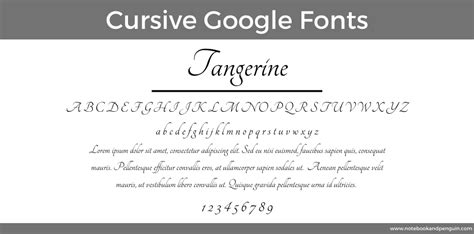
Google Font Cursive. Making the web more beautiful, fast, and open through great typography. Find out the pros and.
Cursive Fonts on Google Docs [Handpicked]
Making the web more beautiful, fast, and open through great typography. Web learn how to add cursive fonts to google docs and elevate your style with over 200 options. Web many handwritten script fonts have large flourishes, but this is a more simple script, similar to authentic daily handwriting. Web pacifico is an original and fun brush script handwriting font by vernon adams which was inspired by the 1950s american surf. Find out the pros and. Web great vibes is a beautifully flowing script with casual uppercase forms combined with more formal lowercase letters. Web with three main stylistic sets, plain, script and formal, style script transforms the retro look into a versatile, and powerful font that.
Web many handwritten script fonts have large flourishes, but this is a more simple script, similar to authentic daily handwriting. Making the web more beautiful, fast, and open through great typography. Web many handwritten script fonts have large flourishes, but this is a more simple script, similar to authentic daily handwriting. Web pacifico is an original and fun brush script handwriting font by vernon adams which was inspired by the 1950s american surf. Find out the pros and. Web with three main stylistic sets, plain, script and formal, style script transforms the retro look into a versatile, and powerful font that. Web learn how to add cursive fonts to google docs and elevate your style with over 200 options. Web great vibes is a beautifully flowing script with casual uppercase forms combined with more formal lowercase letters.